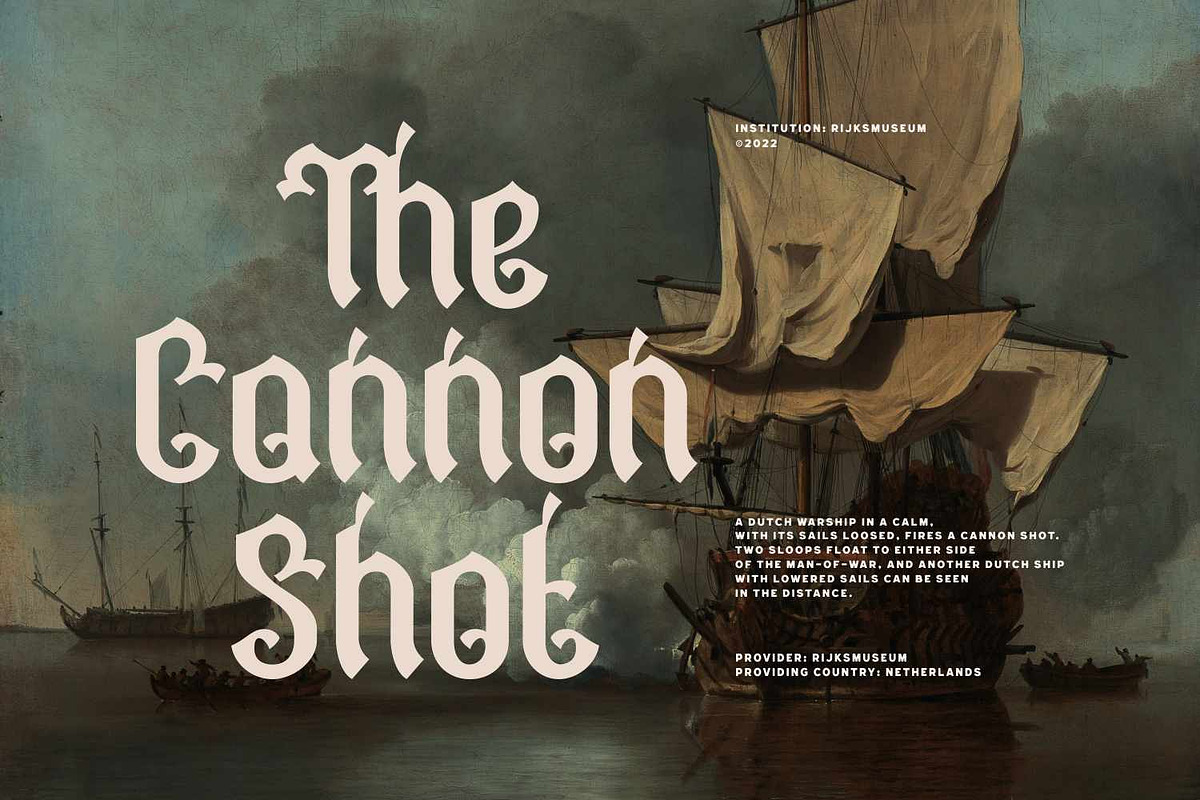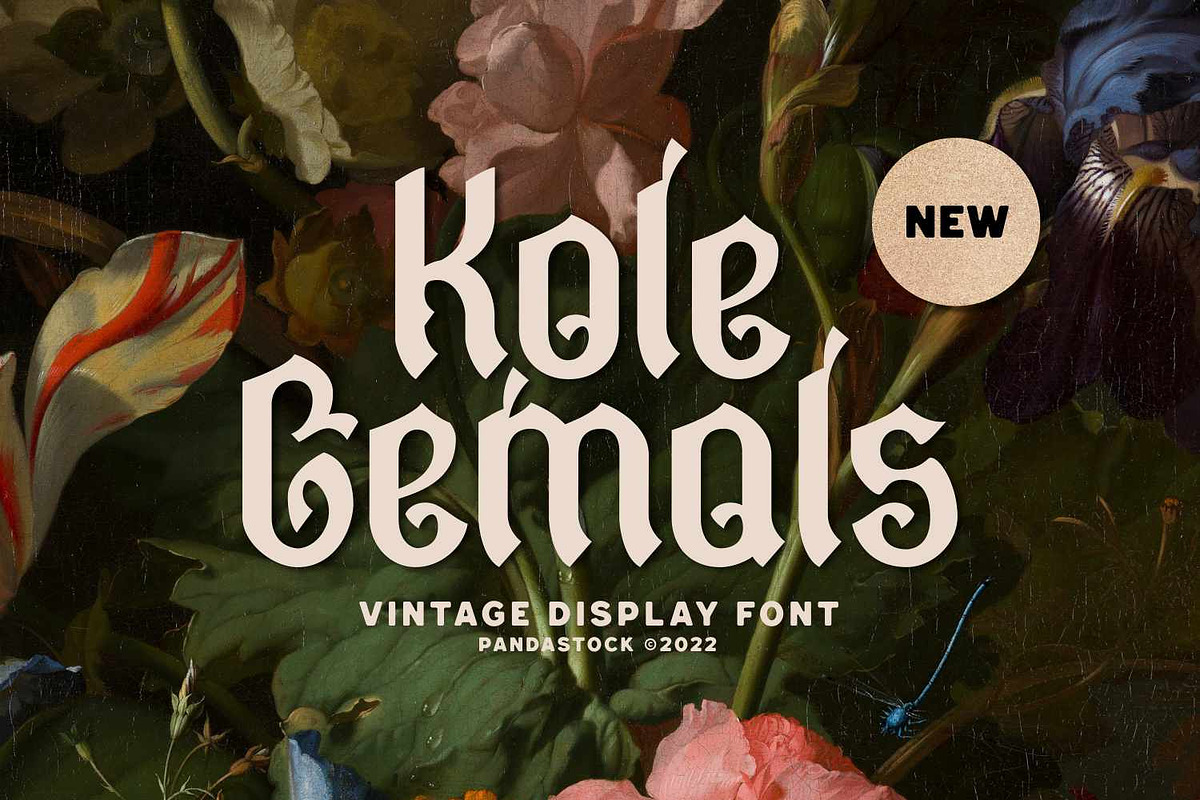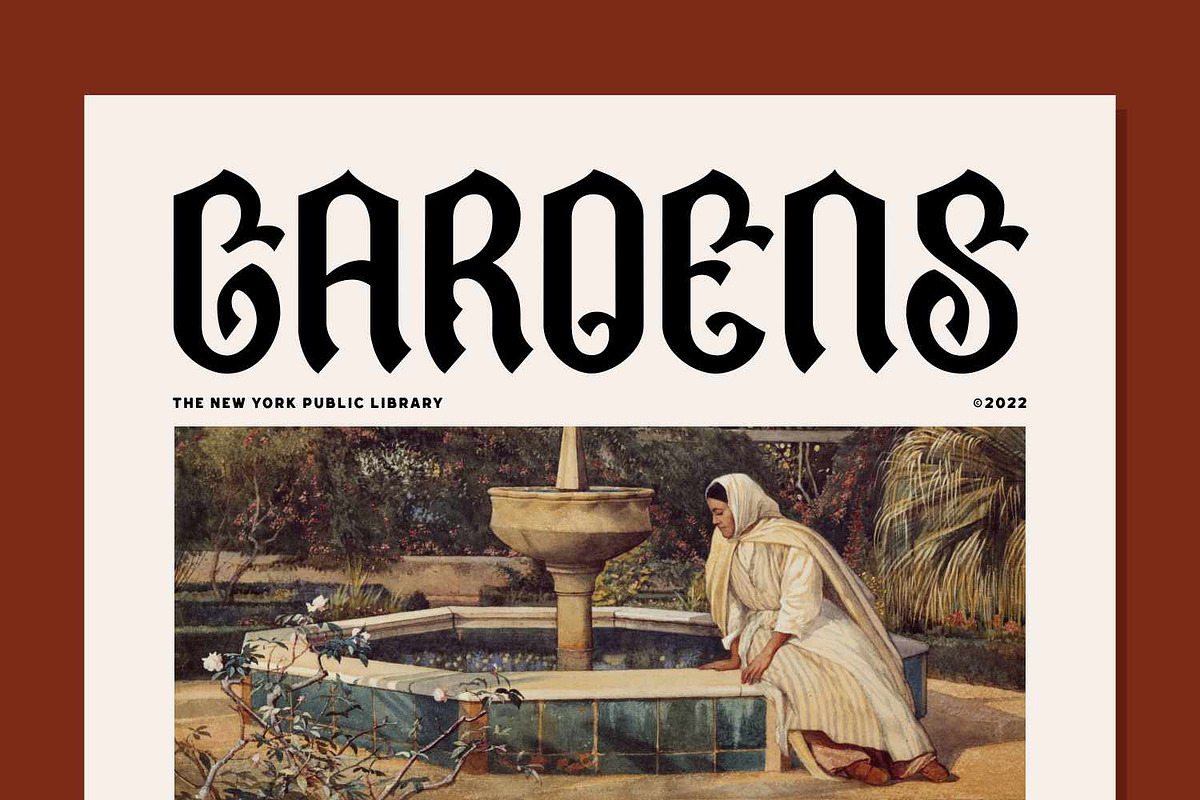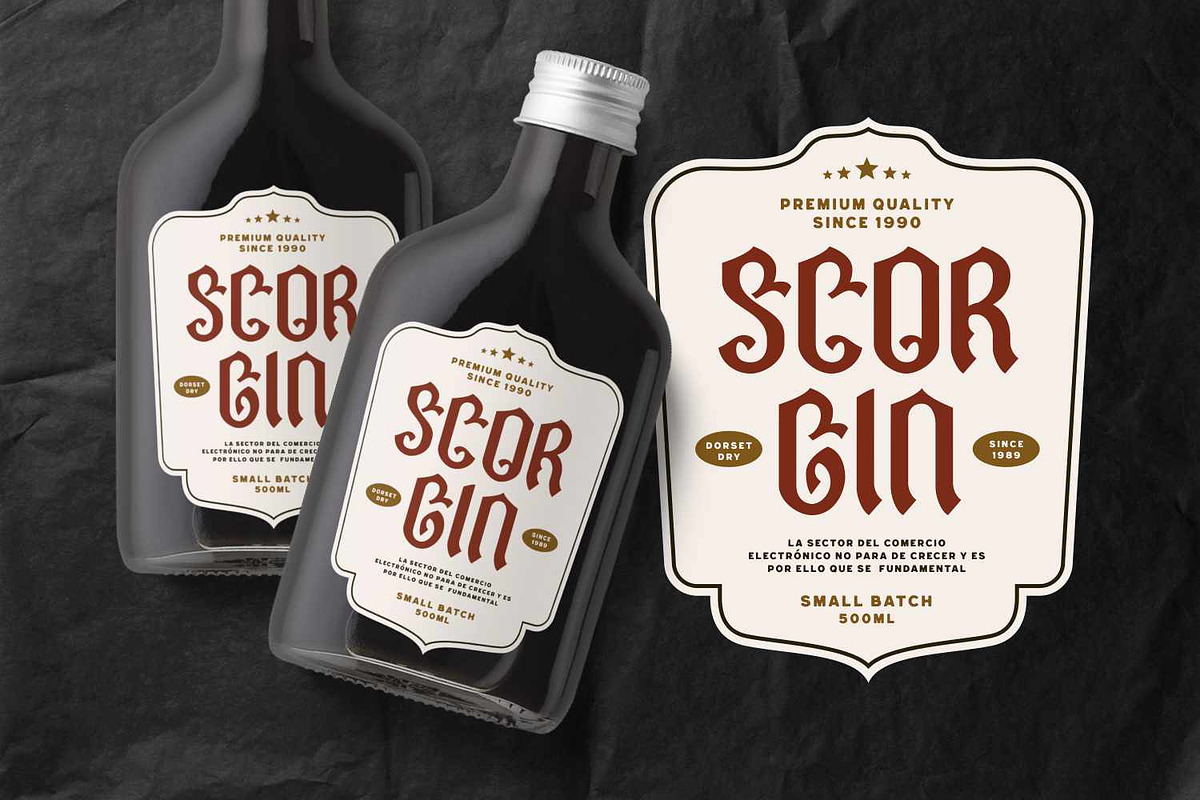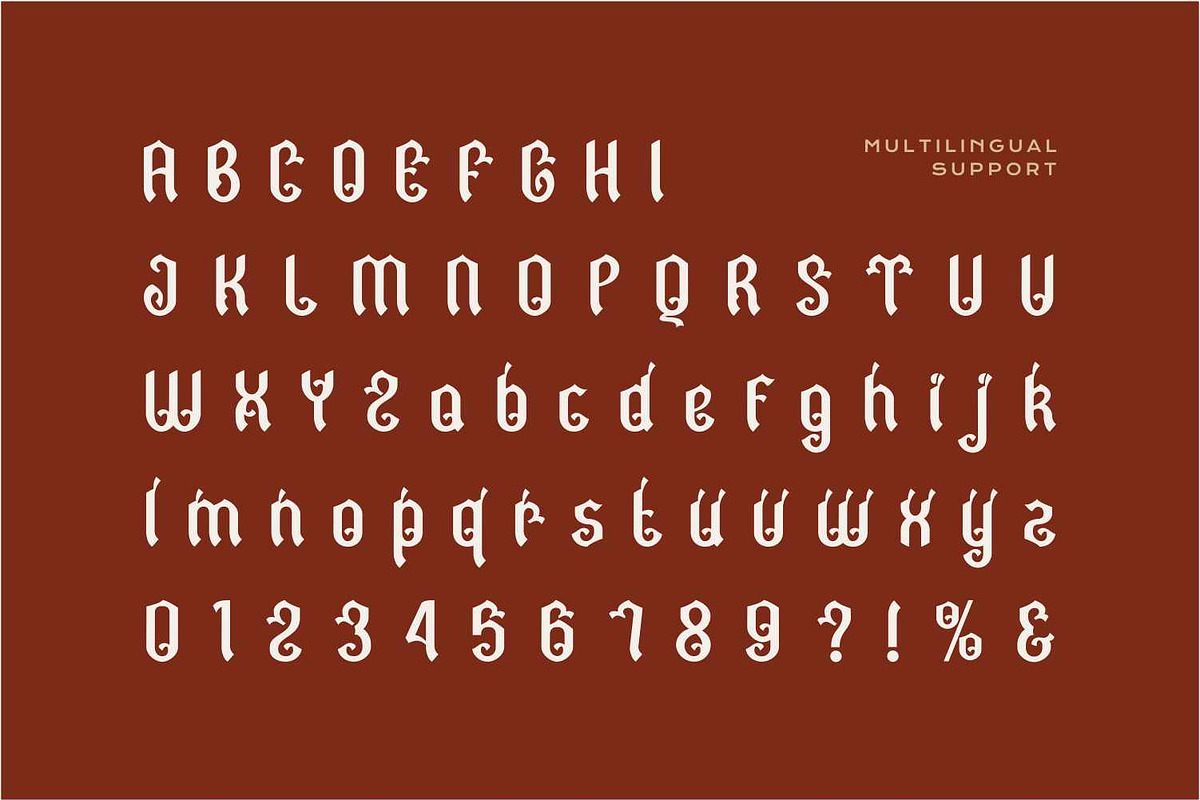
Kole Gemols - Vintage Blackletter
Kole Gemols font is a modern interpretation of traditional Blackletter, featuring thick and angular letterforms and ornate decorative details. This font combines historic Gothic style with a contemporary touch, showcasing consistent stroke thickness that enhances readability while maintaining the dramatic feel of medieval script.
This font intricate curves and sharp terminals deliver a distinctive artistic look, making it ideal for headlines, titles, heritage branding, editorial design, classical concerts, or gothic themed events
- Uppercase and Lowecase Characters.
- PUA Encoded Characters.
- Numerals and Punctuations.
- Alternates and Ligatures.
- Multilingual Support.